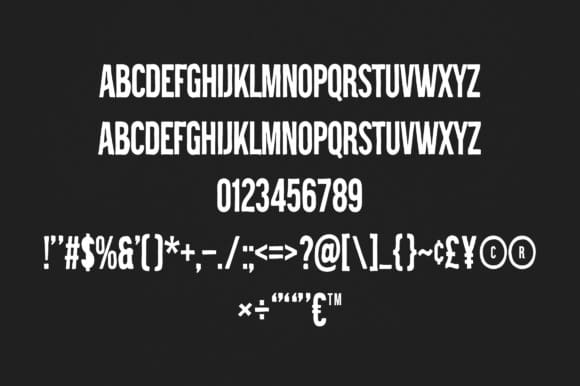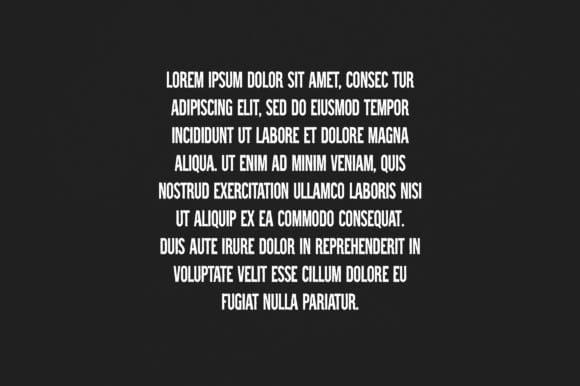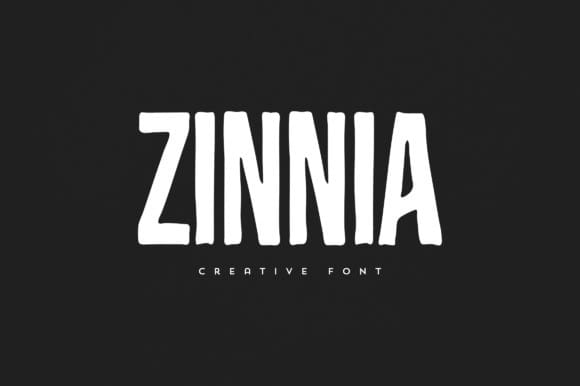
Zinnia Font
Zinnia Font is an elegant and versatile sans serif display font that will make your typography truly unique! It will enchant every logo, branding, headline, or plain text!